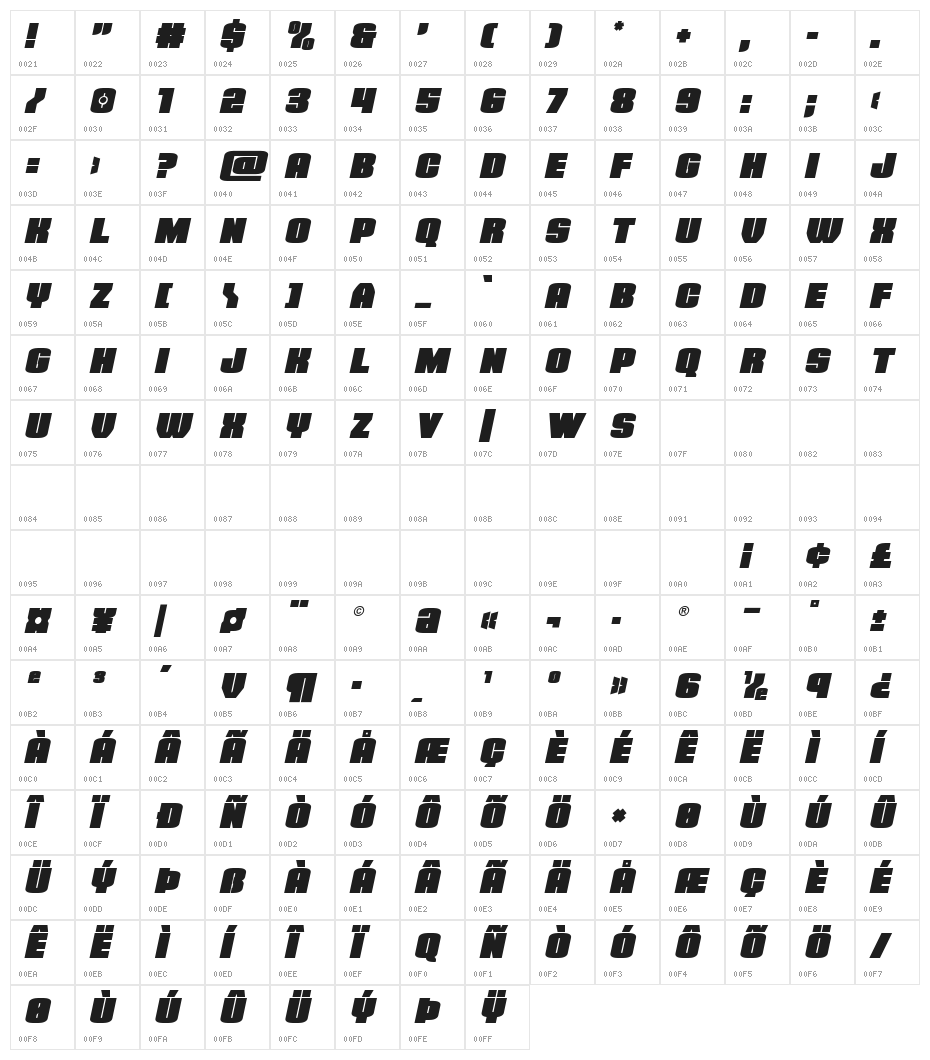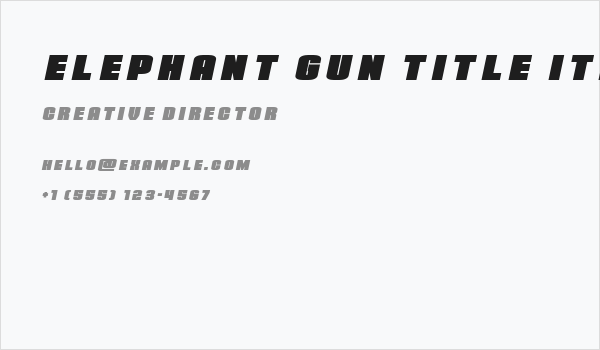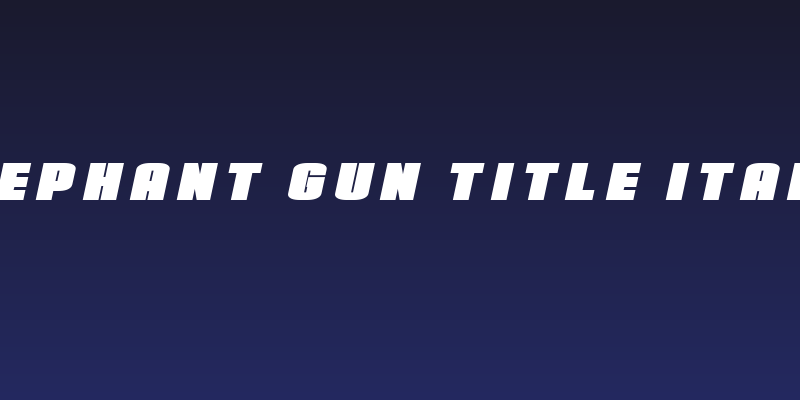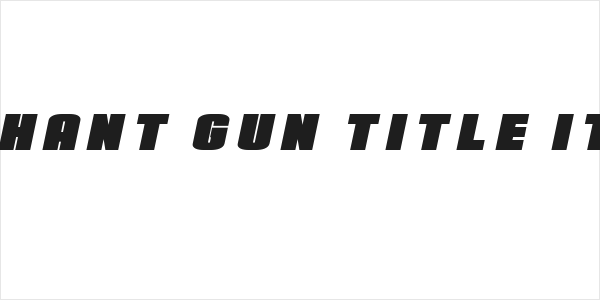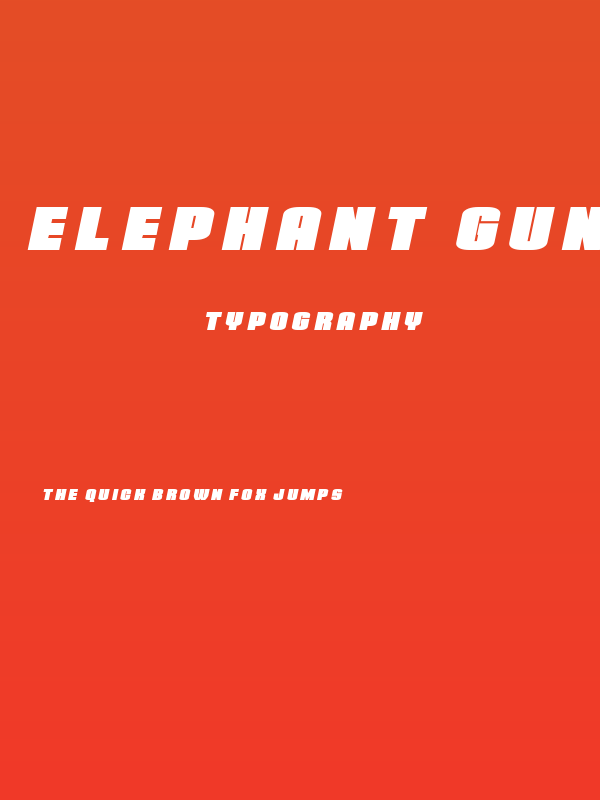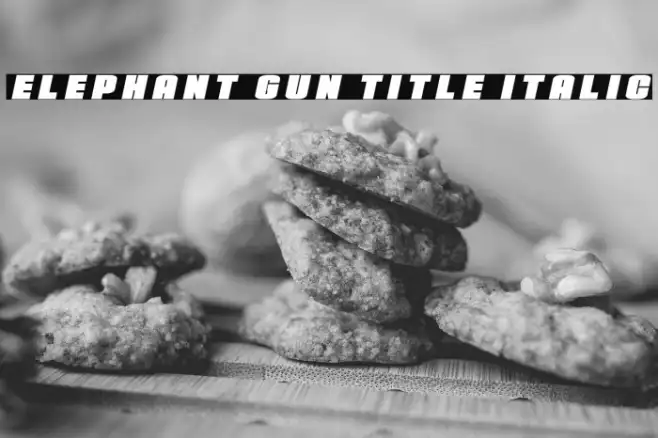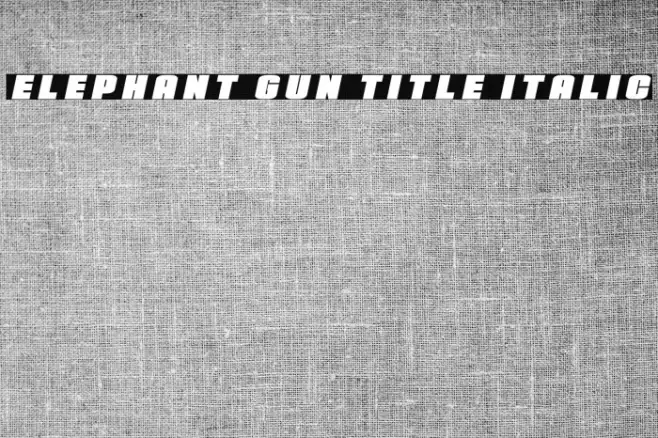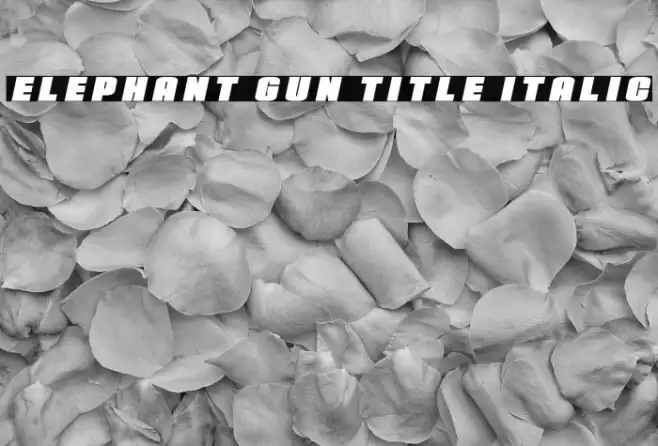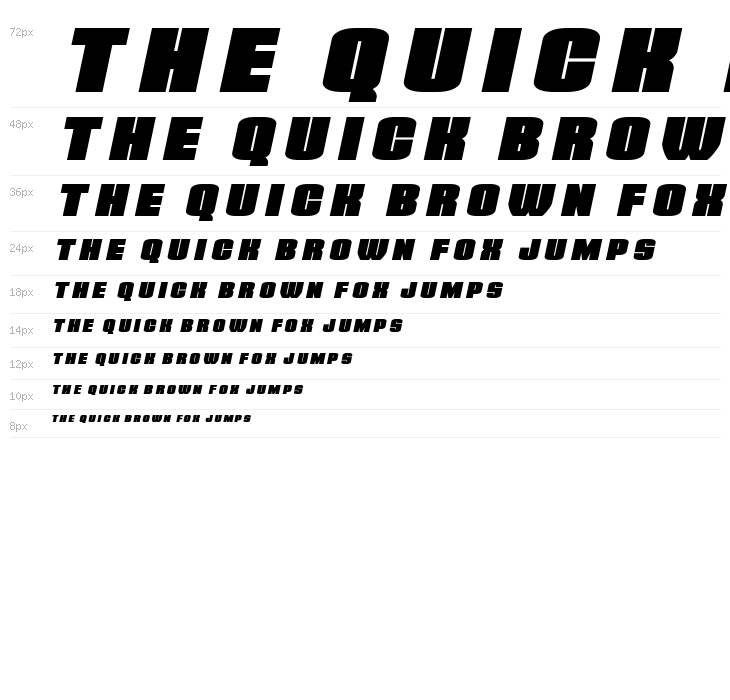
Elephant Gun Title Italic Font
Elephant Gun Title Italic Description
This font features a bold, italicized style with a strong, impactful presence. The characters are designed with a slight slant, enhancing the dynamic and energetic feel. Each letter is crafted with thick strokes, providing a robust and commanding appearance. The font maintains a consistent weight throughout, ensuring uniformity and balance. The character spacing is relatively tight, which contributes to its cohesive and compact look. The numbers and special characters follow the same stylistic approach, making them seamlessly integrate with the alphabet. This font is ideal for projects that require a bold statement and a modern, edgy aesthetic.